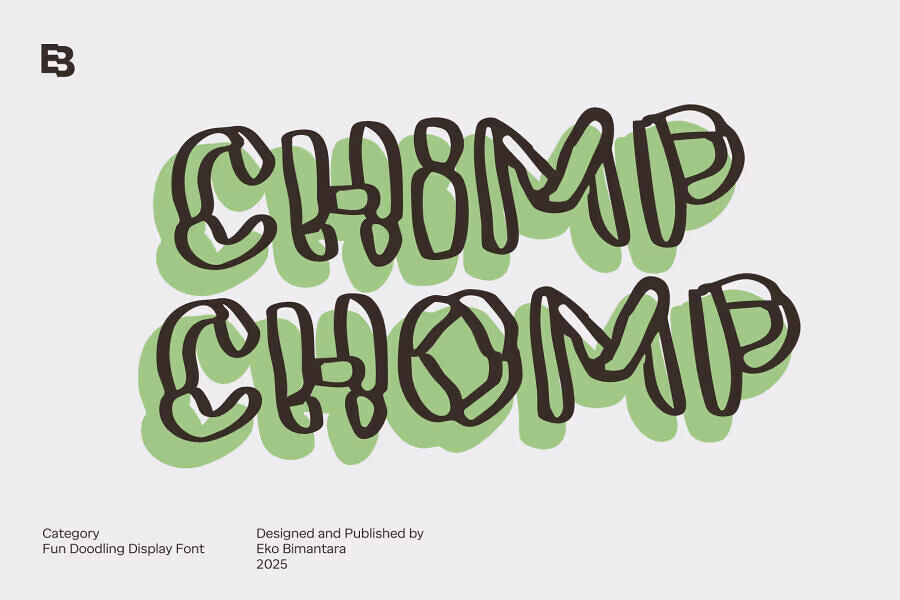
Chimp Chomp is a quirky, doodle-style display font with a playful, hand-drawn outline. Its wonky lines and scribbled appearance evoke childlike creativity, making it perfect for DIY-themed posters, children’s books, and educational materials.
Featuring bold, uneven contours and a cartoon-style shadow, this font adds a lighthearted, crafty charm to any project. Free for commercial use, Chimp Chomp is ideal for creating engaging headlines and imaginative designs that need a dose of silly fun.